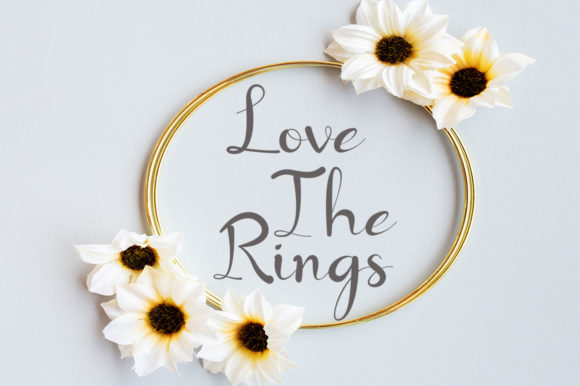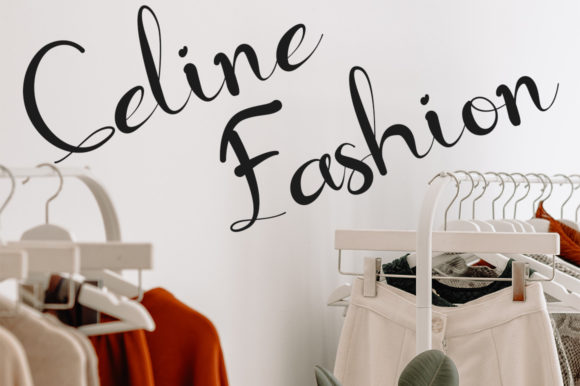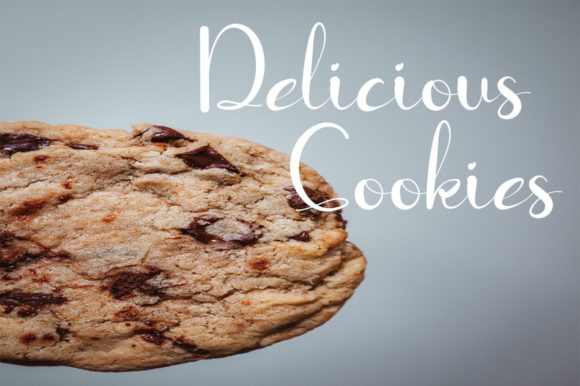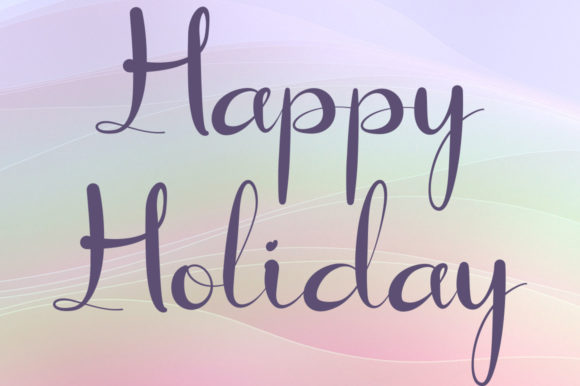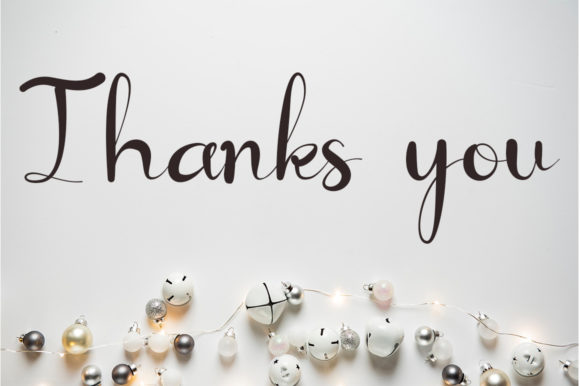
Introduction to Melody Font
Have you ever found yourself gazing at a beautifully handwritten note, wishing you could replicate its elegance in your next design project? For designers and creatives, finding the perfect font can be a challenge, but what if you stumbled upon one that effortlessly exudes tenderness and sophistication?
Enter the Melody Font, a stunning handwritten script font that is sure to captivate your audience. This high-quality font is a valuable resource for designers looking to add a touch of whimsy and charm to their creative projects. With its transparent background and free download option, you can easily incorporate the Melody Font into your designs and elevate them to new heights.
Whether you’re working on a branding project, a wedding invitation, or a social media campaign, the Melody Font is an excellent choice. Its versatility and beauty make it a must-have in any designer’s toolkit.
Key Features of Melody Font
- Unique and elegant font style with a transparent background, ideal for various design applications.
- Designed to be versatile and adaptable, suitable for a wide range of creative projects, from digital art to print materials.
- Features a clean and sophisticated design, making it an excellent choice for branding, typography, and other design elements.
Honest Review: Melody Font
As a designer, I’m always on the lookout for high-quality design resources to enhance my creative projects. Recently, I stumbled upon the Melody Font, and I must say, it’s been a game-changer for me.
- ✨ The font is incredibly versatile and can be used for a wide range of creative projects, from logos to brochures.
- ✨ The high-quality design ensures that the font looks great on both digital and print materials.
- ✨ The transparent background allows for seamless integration with other design elements.
- ⚠️ The font may not be available in as many languages as some other fonts on the market.
Tips for Getting the Most Out of the Melody Font
To get the most out of the Melody Font, use it in combination with a transparent background to create a seamless design. You can also experiment with different font sizes and styles to create a unique and creative look. Additionally, use the font in conjunction with other design elements, such as shapes and images, to create a visually appealing design.
Common Use Cases for the Melody Font
The Melody Font is a versatile design resource that can be used in a variety of creative projects, including logos, business cards, and social media graphics. It is also